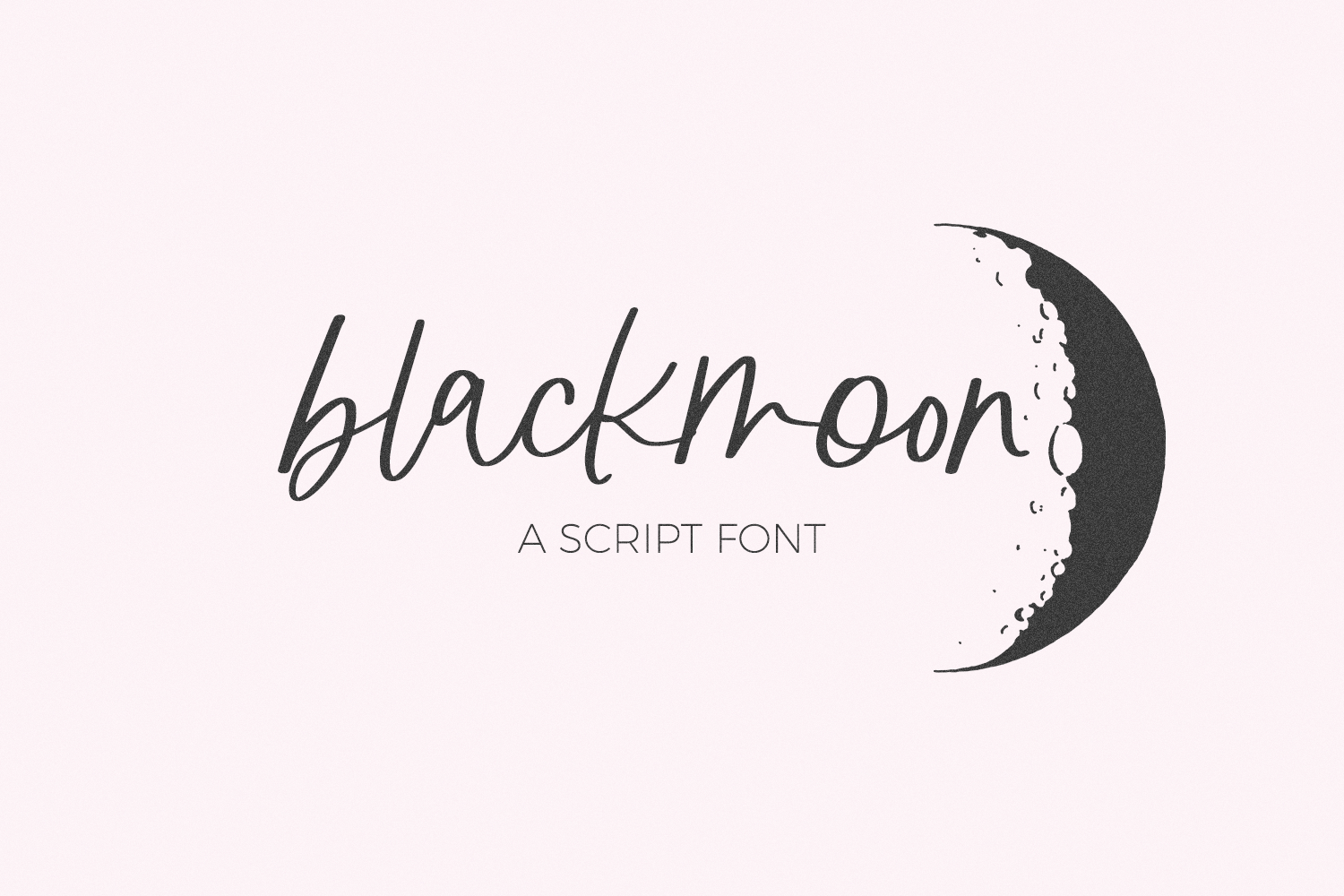
Blackmoon Script
Blackmoon Script is a casual handwritten font. This font is perfect for logos & branding, greeting cards, painted banners, digital planners, note-taking apps, Canva, Cricut projects, Silhouette projects, designing SVG files, laser cutting projects, & more. Blackmoon is packed full of alternate lowercase letters & ligatures to enhance the handwritten quality of your project.
Blackmoon Script includes:
- 26 alternate characters - lowercase a-z
- 58 ligatures - aa, ah, am, an, as, at, bb, cc, dd, ee, em, en, es, et, ff, gg, gh, hh, ii, im, in, ins, is, it, jj, kk, ks, ll, ls, mm, ms, nn, ns, nt, oh, om, on, oo, os, ot, ov, ow, pp, qq, rr, ss, tt, um, un, us, ut, ut, uu, vv, ww, xx, yy, zz